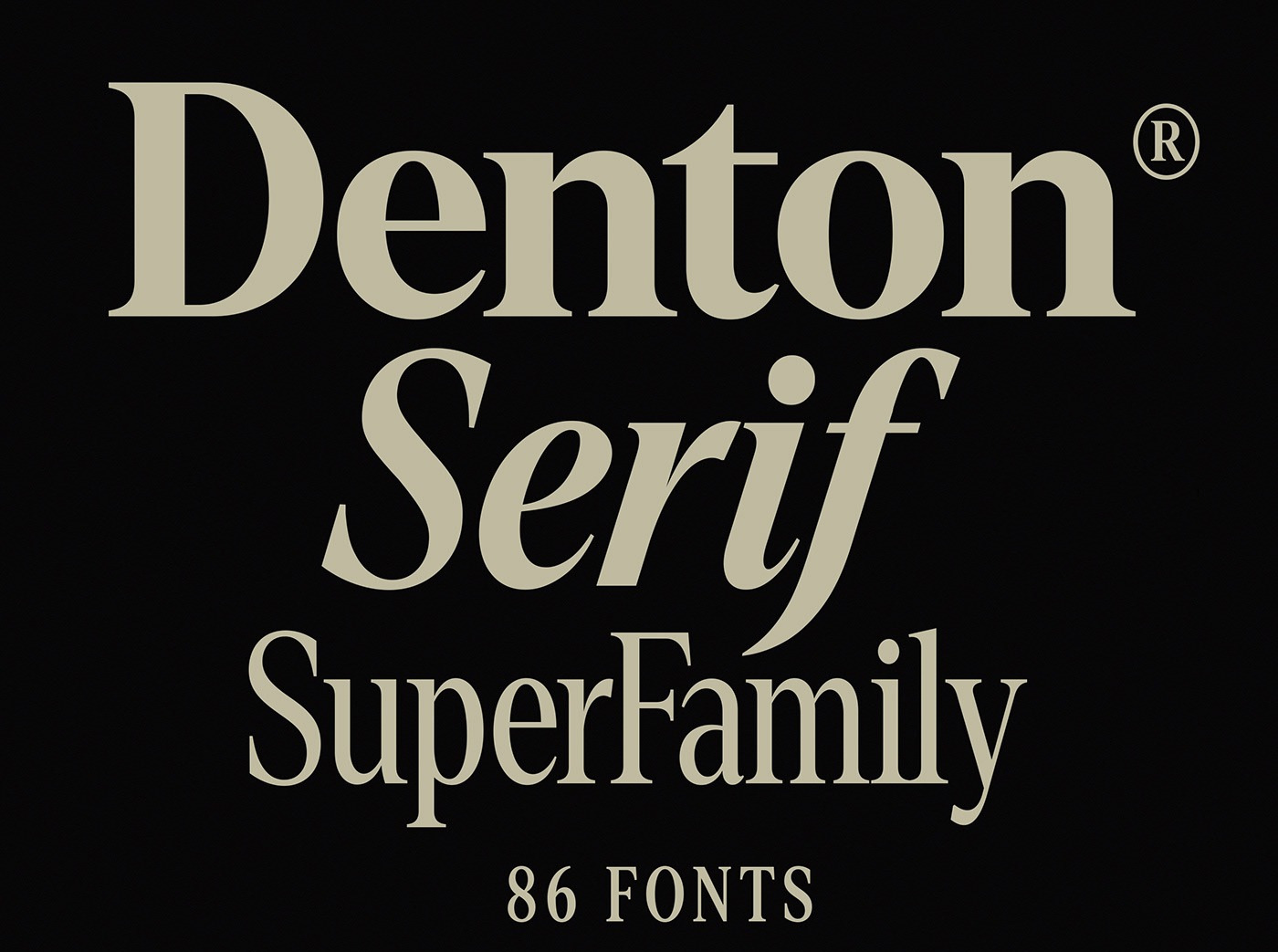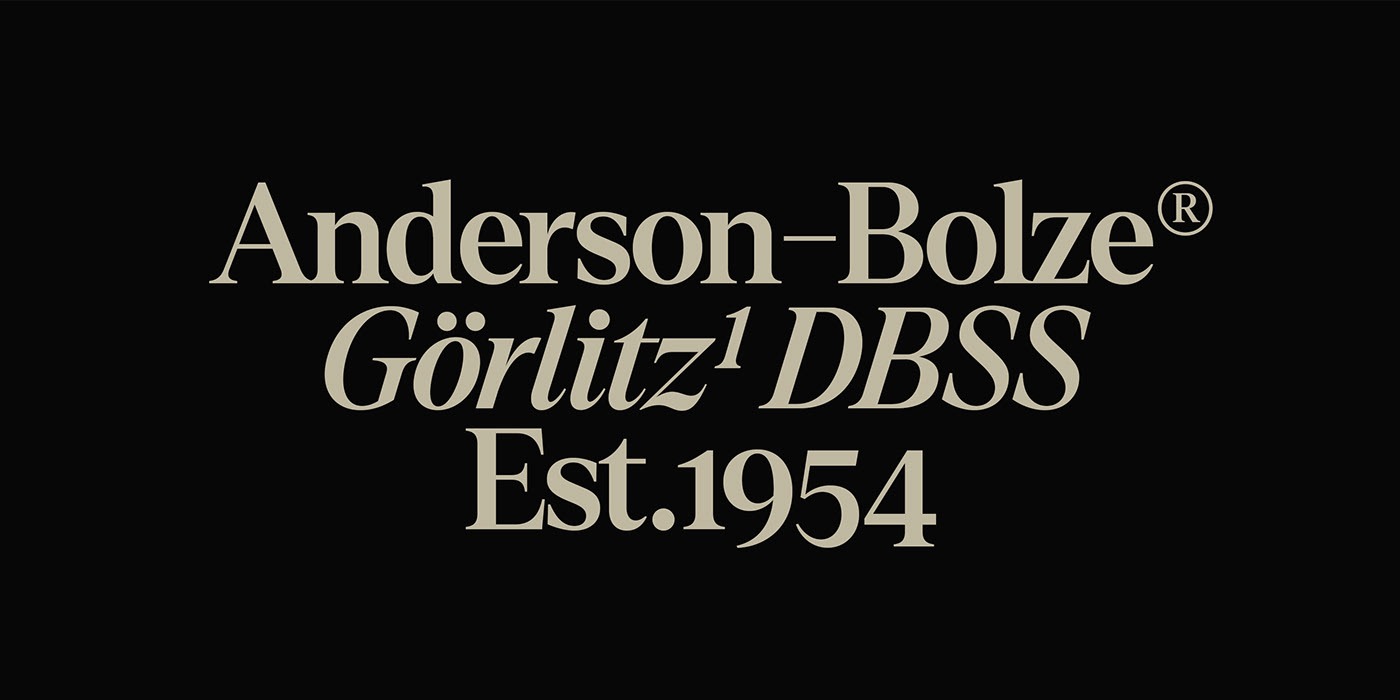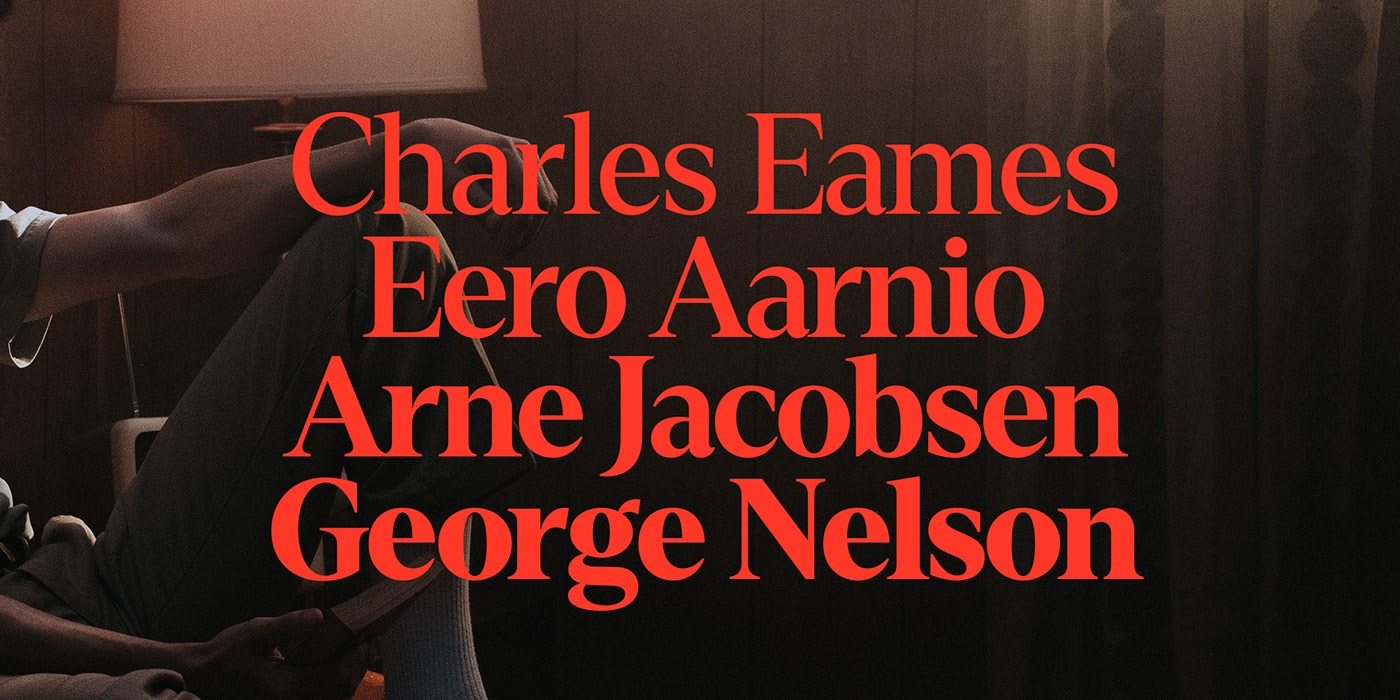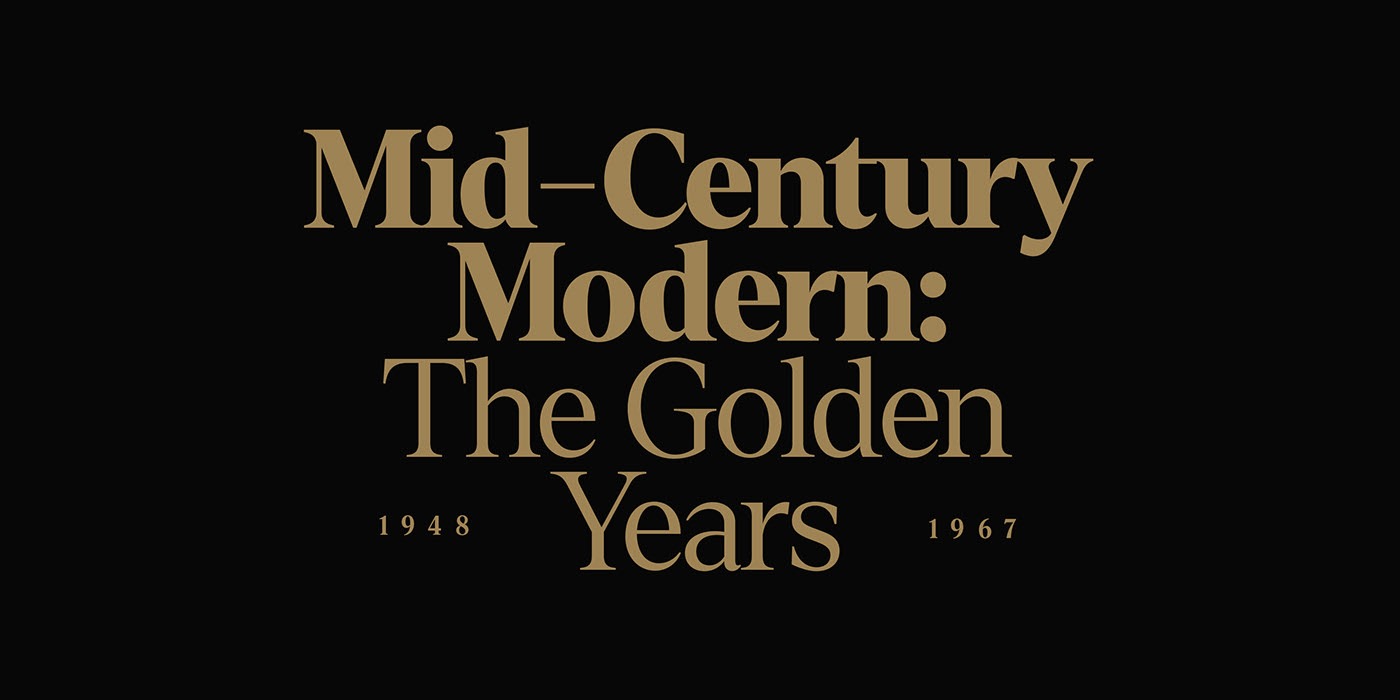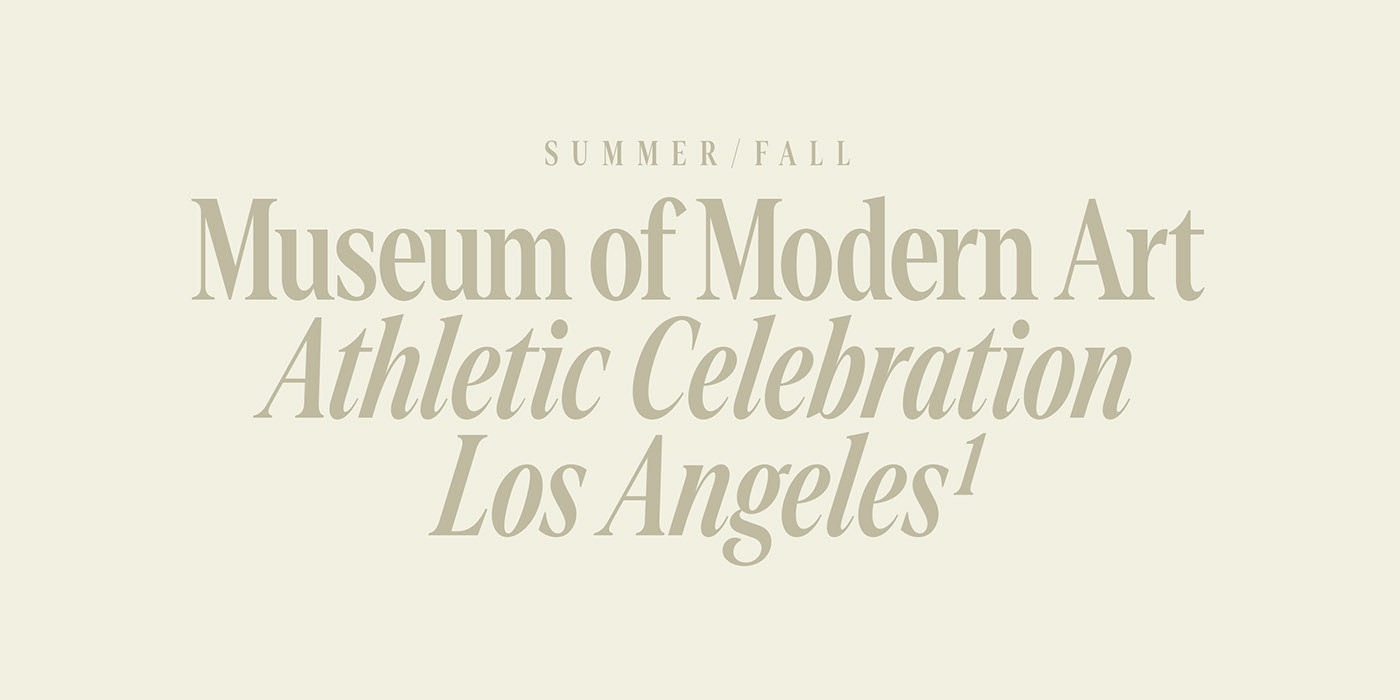
Denton Serif Font
This font is a serif dominated face with a crisp and distinct graphical flavor. Made from font designer named Peregrin Studio. It’s a typeface full of warmth, bringing expressive 70s era design into the 21st century.
With this update, Denton has been expanded and now comes in 86 styles, including weight and width variables, display and text subfamilies and true italic counterparts.